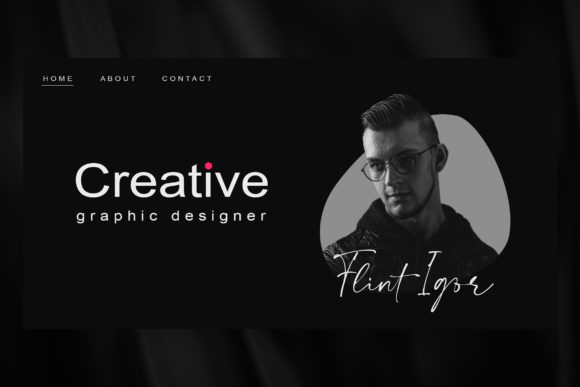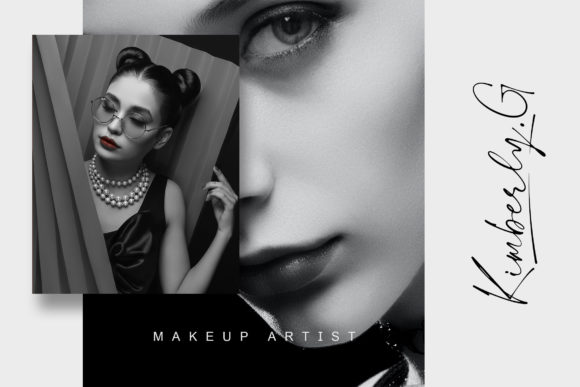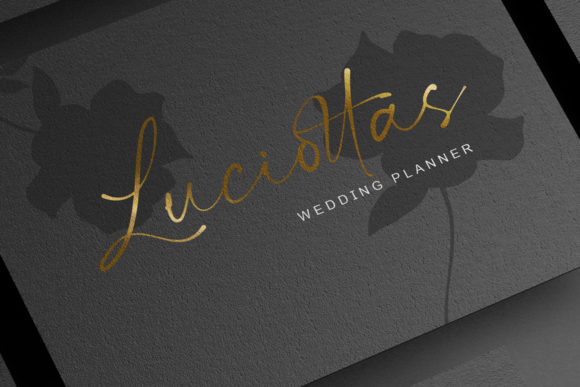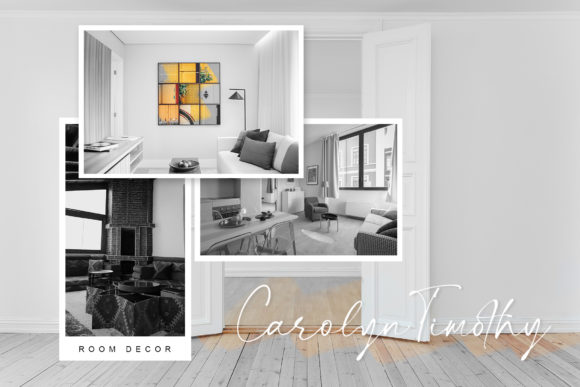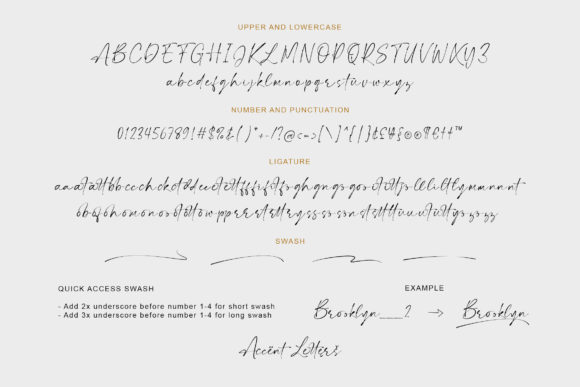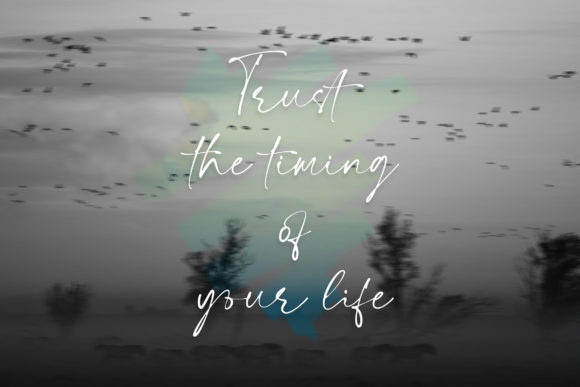
Jason Signature Font – Free Download
Introduction to Jason Signature Font
Jason Signature is an enchanting handwritten font.
This versatile script font has a wide spectrum of applications ranging from greeting cards to headlines and is guaranteed to add a romantic feel to your next project This font is PUA encoded which means you can access all of the beautiful glyphs and swashes with ease.
Key Features of Jason Signature Font
Why Choose Jason Signature Font?
Jason Signature Font offers exceptional quality and versatility, making it a valuable addition to your design toolkit. Whether you’re creating for personal projects or commercial use, Jason Signature Font delivers professional results.